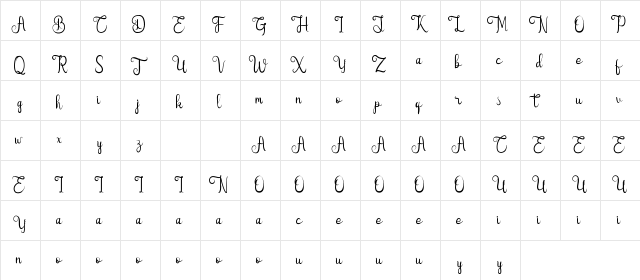
Quinneshademo Regular
Design Context for Quinneshademo Typeface
Quinneshademo is a composed and adaptable typeface that performs quietly and consistently across a wide range of design contexts.